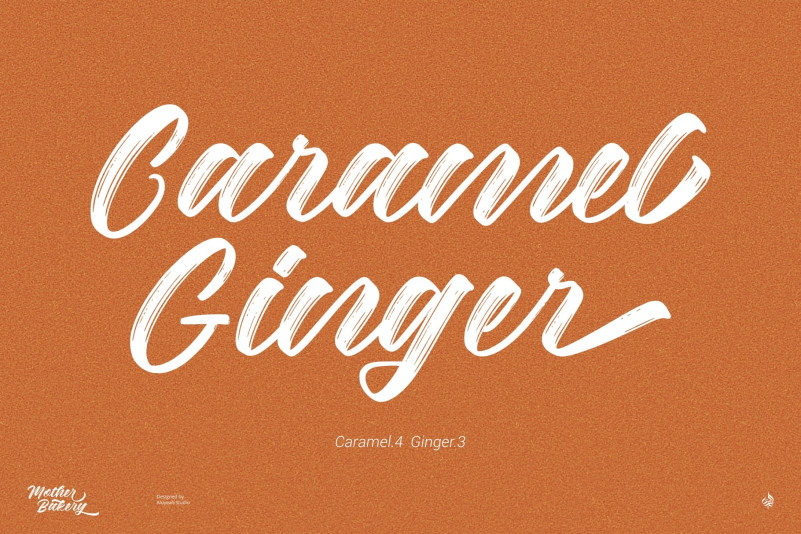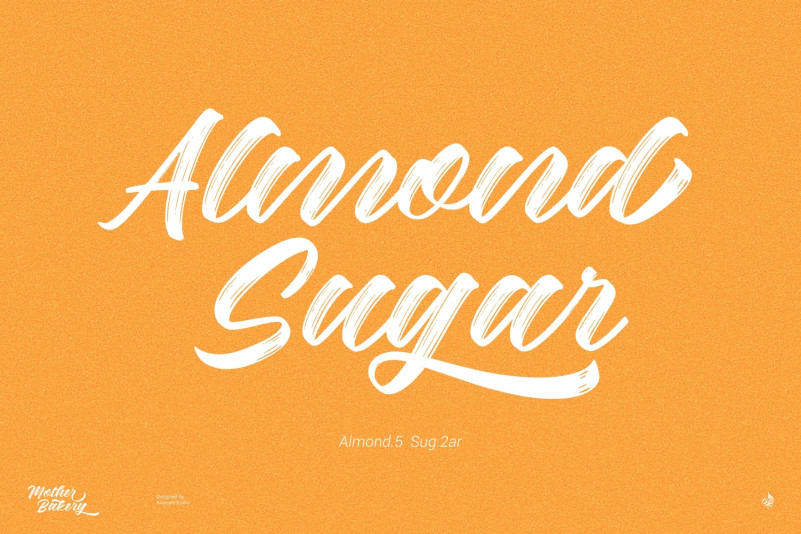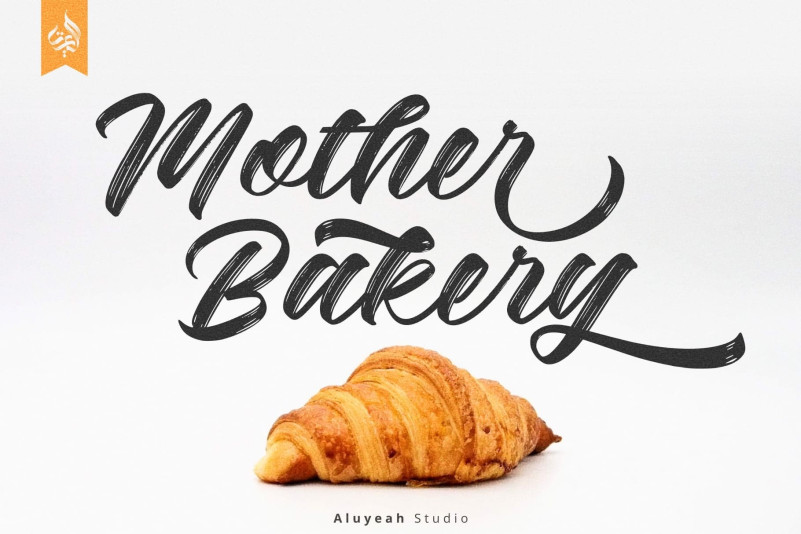
Mother Bakery Font
Mother Bakery Brush Font, a handwriting inspired by the warm and fussy nature of a mother baking cakes for her children and grandchildren. With a bold style but with beautiful curves, Mother Bakery gives the impression of being firm but beautiful, fussy and fierce but full of love.
It can be applied to many areas of design. Coming with 100+ stunning and super easy to use alternates and ligatures. Very suitable for packaging, apps, magazine, headline, website, ads and all type of design project you have.